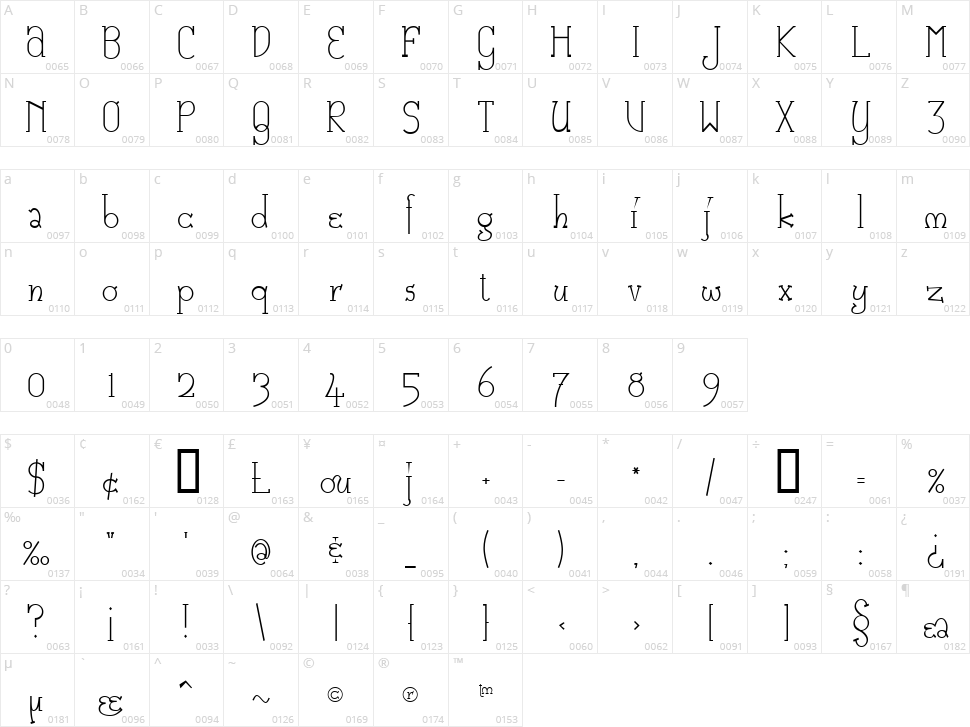
Catharsis Macchiato
A TrueType font created by Christian Thalmann (cinga at gmx dot
This font is aimed at coffee bars and the likes, hence the name. It
offers a range of ligatures; use a keyboard tool to find them all.
-- Christian Thalmann